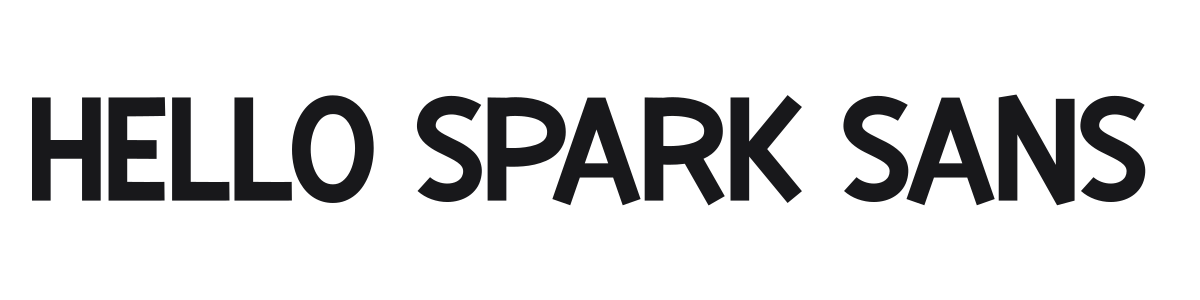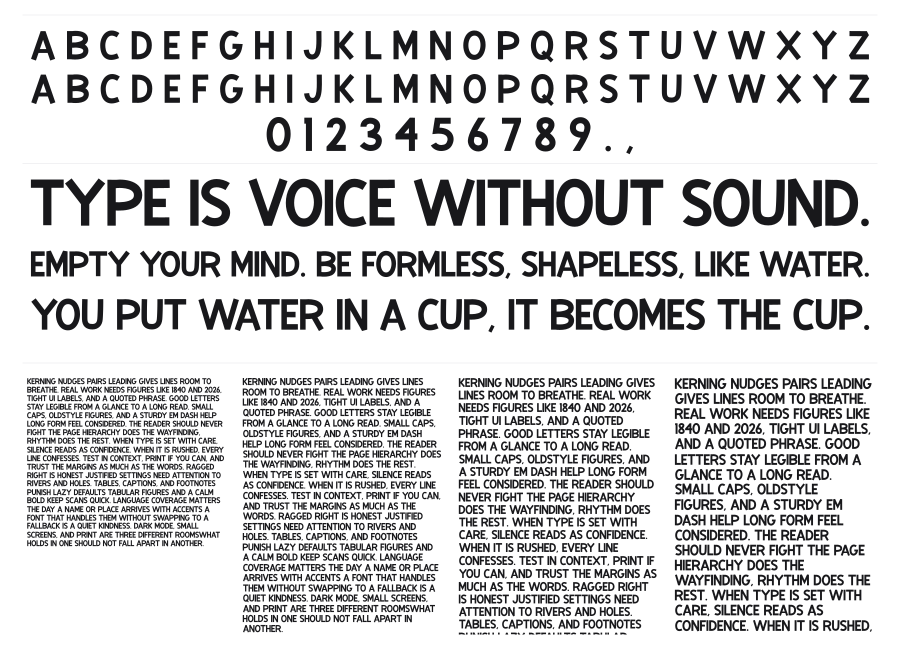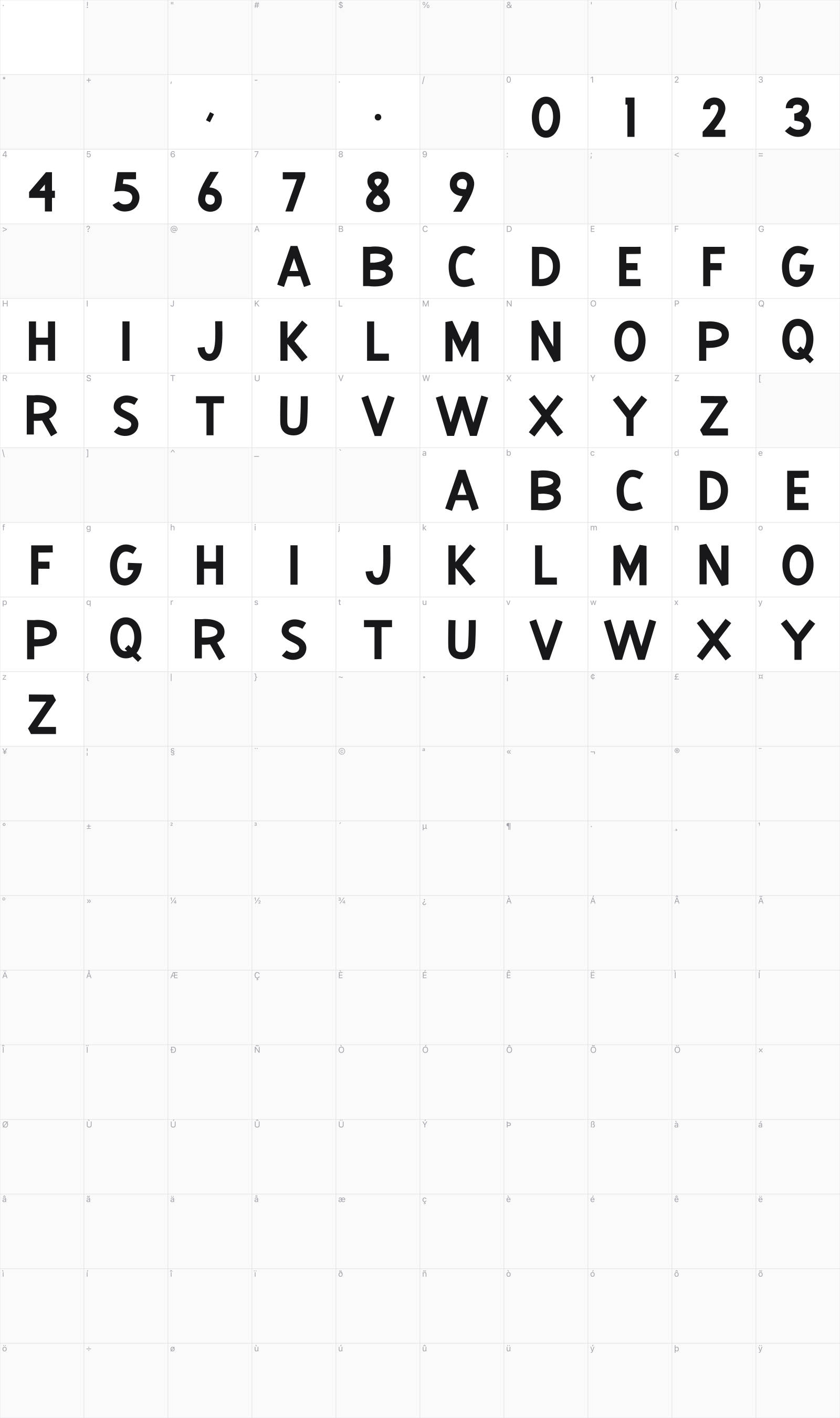
Hello Spark Sans
Hello Spark Sans is a bold, condensed humanist sans with a lively irregularity baked into its construction. Subtle angle cuts and slightly uneven strokes keep it from feeling mechanical, giving it a hand-touched warmth at heavy weight. Strong for brand identities, packaging, and headlines where friendliness and punch need to coexist.